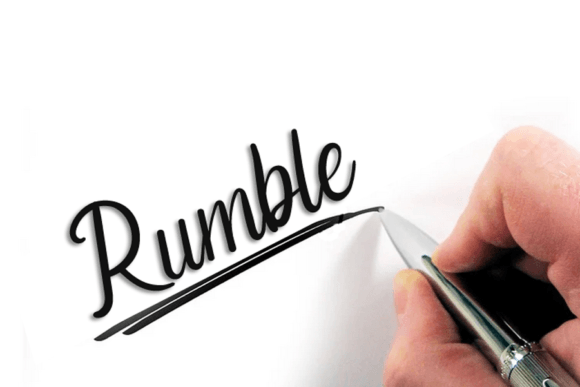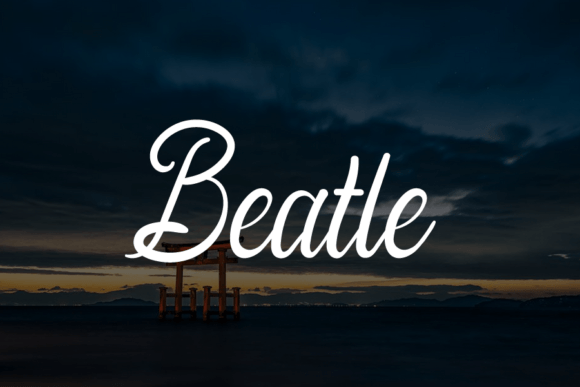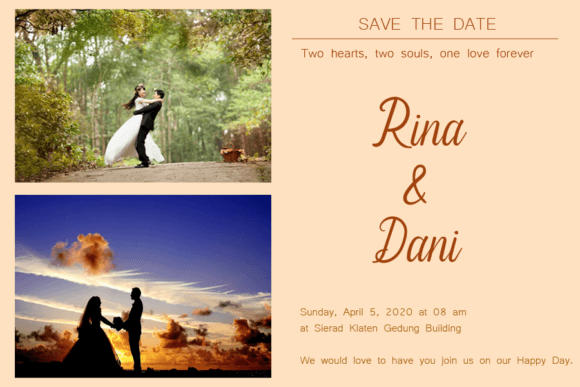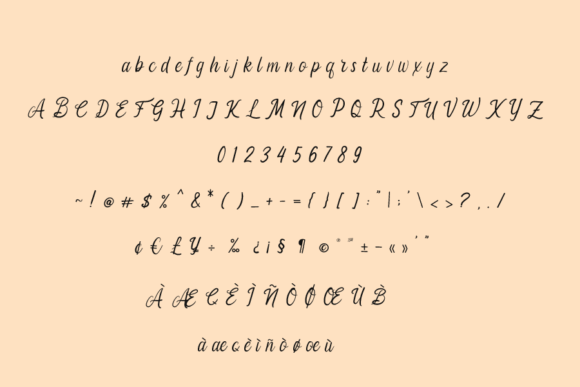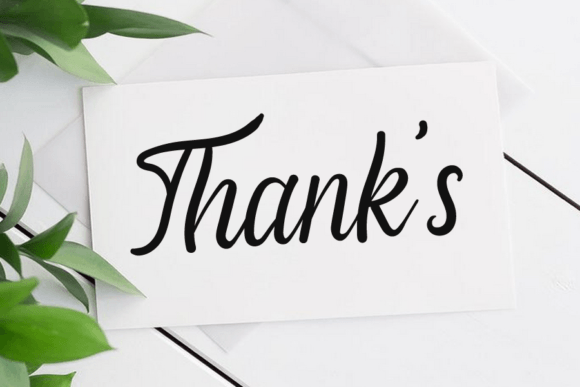
Introducing Dealova Font: The Enchanting Handwritten Typeface
Are you a designer, crafter, or DIY enthusiast looking for a unique and versatile font to elevate your creative projects? Look no further than Dealova Font, an enchanting handwritten typeface that is sure to captivate your audience. With its wide spectrum of applications, ranging from greeting cards to headlines, Dealova Font is the perfect addition to your design toolkit.
Handwritten fonts have a special place in the world of typography. They evoke a sense of warmth, personality, and human touch that is often lacking in digital fonts. Dealova Font is no exception, with its delicate and whimsical strokes that are sure to add a touch of magic to your designs. Whether you’re creating a handmade card, a blog post, or a social media graphic, Dealova Font is the perfect choice to add a personal and emotional touch.
One of the standout features of Dealova Font is its versatility. This enchanting typeface can be used in a wide range of applications, from:
- Greeting cards and invitations: Add a personal touch to your cards and invitations with Dealova Font’s delicate and whimsical strokes.
- Headlines and titles: Use Dealova Font to create eye-catching headlines and titles that are sure to grab attention.
- Blog posts and articles: Add a touch of personality to your blog posts and articles with Dealova Font’s unique and handwritten style.
- Social media graphics: Use Dealova Font to create engaging and shareable social media graphics that will stand out from the crowd.
- Crafting and DIY projects: Add a personal touch to your crafting and DIY projects, such as scrapbooking, journaling, and handmade crafts.
Why Choose Dealova Font?
So why choose Dealova Font over other handwritten fonts? Here are just a few reasons:
- Unique and distinctive: Dealova Font has a unique and distinctive style that is sure to set your designs apart from the crowd.
- Easy to read: Despite its handwritten nature, Dealova Font is surprisingly easy to read, making it perfect for body text and captions.
- Highly versatile: Dealova Font can be used in a wide range of applications, from digital designs to print materials.
- Perfect for crafters and DIY enthusiasts: Dealova Font is a perfect choice for crafters and DIY enthusiasts who want to add a personal touch to their handmade projects.
Tips for Using Dealova Font
Here are a few tips for using Dealova Font in your designs:
- Experiment with different sizes: Dealova Font looks great in a variety of sizes, from large headlines to small captions.
- Pair with other fonts: Dealova Font pairs well with other fonts, such as sans-serif fonts and script fonts.
- Use in combination with images: Dealova Font looks great when used in combination with images, such as photographs and illustrations.
- Don’t be afraid to get creative: Dealova Font is a versatile typeface that can be used in a wide range of creative applications.
In conclusion, Dealova Font is an enchanting handwritten typeface that is sure to captivate your audience. With its wide spectrum of applications, ranging from greeting cards to headlines, Dealova Font is the perfect addition to your design toolkit. Whether you’re a designer, crafter, or DIY enthusiast, Dealova Font is a must-have font that will add a touch of magic to your creative projects.